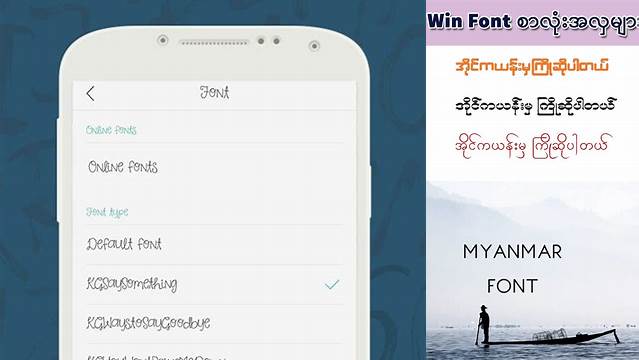
Hey guys! Are you looking to spice up your Windows 10 with some cool Myanmar fonts? You've come to the right place! In this article, we'll dive deep into the world of Myanmar fonts, where to find them, how to install them, and everything in between. Whether you're a designer, a student, or just someone who loves to personalize their computer, this guide is for you. So, let's get started and make your Windows 10 look awesome with these fantastic fonts!
1. Understanding Myanmar Fonts
Let's start with the basics, shall we? Understanding Myanmar fonts is crucial before diving into the download process. Myanmar fonts, also known as Burmese fonts, are typefaces designed to display the Myanmar script accurately on digital devices. The Myanmar script is used to write the Burmese language, which is spoken by millions of people, primarily in Myanmar (formerly Burma). This script has its own unique characters and stylistic nuances, making it essential to have the correct fonts installed to ensure text is displayed properly. Without the right fonts, Myanmar text can appear as gibberish or boxes, which is definitely not what we want!
The history of Myanmar fonts is quite fascinating. The development of these fonts has evolved significantly over the years, especially with the advent of digital typography. Early digital versions of Myanmar fonts often faced challenges in terms of compatibility and proper rendering across different operating systems and software. This led to the creation of various font encoding standards, such as Zawgyi and Unicode, each with its own approach to representing Myanmar characters. Understanding these encoding differences is essential when choosing and using Myanmar fonts today. For instance, some older fonts might use the Zawgyi encoding, which, while popular, has compatibility issues with modern systems that prefer the Unicode standard. Therefore, selecting the right font encoding is crucial for ensuring readability and avoiding display problems.
When you're dealing with Myanmar fonts, you'll often hear about two main encoding systems: Zawgyi and Unicode. Zawgyi was a widely used, non-Unicode encoding that gained popularity due to its early adoption and ease of use. However, because it's not a standard, Zawgyi fonts can cause compatibility issues across different platforms and applications. On the other hand, Unicode is the international standard for character encoding, designed to support all the world's writing systems. Unicode Myanmar fonts offer better compatibility and are the recommended choice for modern systems, including Windows 10. Using Unicode ensures that your text will display correctly on any device and in any application that supports Unicode, making it the more future-proof option. So, when you're on the hunt for Myanmar fonts, keep an eye out for Unicode-compliant options to save yourself from potential headaches down the road. It's always better to go with the standard!
2. Why You Need Myanmar Fonts on Windows 10
So, why exactly do you need Myanmar fonts on Windows 10? Well, there are several compelling reasons! First and foremost, if you interact with Burmese language content, whether it’s reading news articles, communicating with friends and family, or working on documents, having the correct fonts is absolutely essential. Without Myanmar fonts installed, Burmese text will likely appear as a jumble of squares or incorrect characters, making it impossible to read. This can be incredibly frustrating, especially if you rely on this content for work or communication.
Beyond just readability, having Myanmar fonts enhances your overall digital experience. Think about it – if you're passionate about the Burmese language and culture, being able to see and use the script correctly on your computer is a matter of pride and connection. It allows you to fully engage with content in your native language, preserving its authenticity and beauty. Moreover, if you’re a designer or content creator, using Myanmar fonts allows you to produce high-quality, professional-looking materials that resonate with your target audience. Whether you're designing a website, creating marketing materials, or writing a report, having the right fonts ensures your message is conveyed accurately and effectively. So, it's not just about functionality; it's about cultural preservation and professional presentation too.
Another significant reason to install Myanmar fonts on Windows 10 is compatibility. As mentioned earlier, the Unicode standard is the preferred encoding for modern systems. By using Unicode Myanmar fonts, you ensure that your text is compatible with a wide range of applications and devices. This means you can create a document on your Windows 10 computer and be confident that it will display correctly on someone else's device, whether they're using a Mac, an Android phone, or another Windows machine. This level of compatibility is crucial in today's interconnected world, where we frequently share documents and communicate across different platforms. Using outdated or non-standard fonts can lead to formatting issues and misinterpretations, which can be avoided by simply installing the correct Unicode Myanmar fonts. So, compatibility is key, guys!
3. Where to Find Free Myanmar Fonts
Okay, so now you know why you need Myanmar fonts, but where do you find these free Myanmar fonts? Don't worry, I've got you covered! The internet is a treasure trove of resources, and there are several reputable websites and sources where you can download Myanmar fonts for free. However, it’s crucial to be cautious and ensure that you’re downloading from trusted sources to avoid any potential security risks like malware or viruses. After all, we want cool fonts, not a computer headache!
One of the best places to start your search is Google Fonts. Google Fonts is a fantastic resource that offers a wide variety of open-source fonts, including several Myanmar fonts that are Unicode compliant. The fonts available on Google Fonts are not only free but also optimized for web use, meaning they’ll look great on your computer and on websites you design. The advantage of using Google Fonts is that you can easily embed them into your websites or download them for desktop use. Plus, Google Fonts ensures that all fonts are high-quality and compatible with modern web browsers and operating systems. It's a win-win!
Another excellent source for free Myanmar fonts is SIL International. SIL International is a non-profit organization that develops and provides fonts, software, and resources for lesser-known languages, including Burmese. They offer high-quality, Unicode-compliant fonts that are designed for linguistic accuracy and readability. SIL fonts are often used by academics, linguists, and anyone working with language-specific texts. Their website provides detailed information about each font, including its features and usage guidelines. By downloading fonts from SIL International, you can be confident that you're getting a reliable and well-designed typeface. Additionally, many open-source font repositories and forums dedicated to typography often feature user-submitted and community-developed Myanmar fonts. Websites like FontSpace, Dafont, and even GitHub can be valuable resources, but always exercise caution and check the licensing terms before downloading and using fonts from these sources. Make sure the fonts are free for personal or commercial use, depending on your needs.